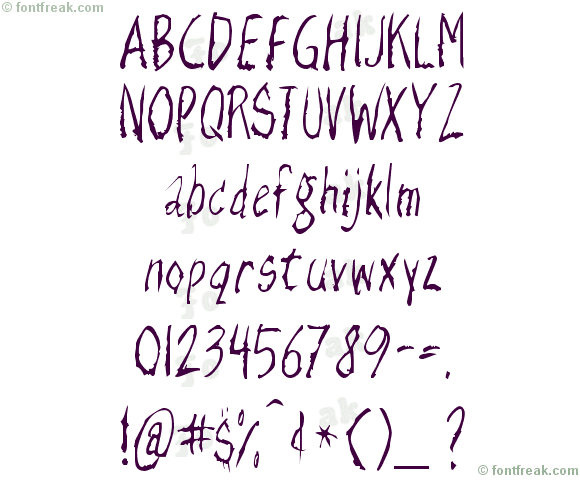
Razor Keen
Razor Keen, designed by Ray Larabie in 1997, is a striking display font that embodies a unique blend of creativity and edge. This freeware typeface features a handwritten style with an artistic flair, making it an excellent choice for projects that require a personal touch. The visual characteristics of Razor Keen include a medium stroke weight with slight variations, providing a sense of dynamism and movement. The letters are well-spaced, ensuring readability while maintaining a casual yet stylish appearance. The irregularities in letterforms add to its charm, making each character appear lively and engaging.
Ideal for a variety of applications, Razor Keen excels in contexts such as invitations, greeting cards, and posters, where a distinctive look is desired. Its playful style also makes it suitable for branding projects, particularly for businesses targeting a younger audience, such as cafes or artisanal shops. Graphic designers will appreciate its versatility, as it can enhance both digital and print materials. Additionally, content creators can leverage the font for social media graphics, ensuring their posts stand out in a crowded feed.
The target audience for Razor Keen includes graphic designers, small business owners, and anyone looking to add a unique voice to their projects. The font's quirky, artistic nature can easily captivate viewers and convey a sense of individuality.